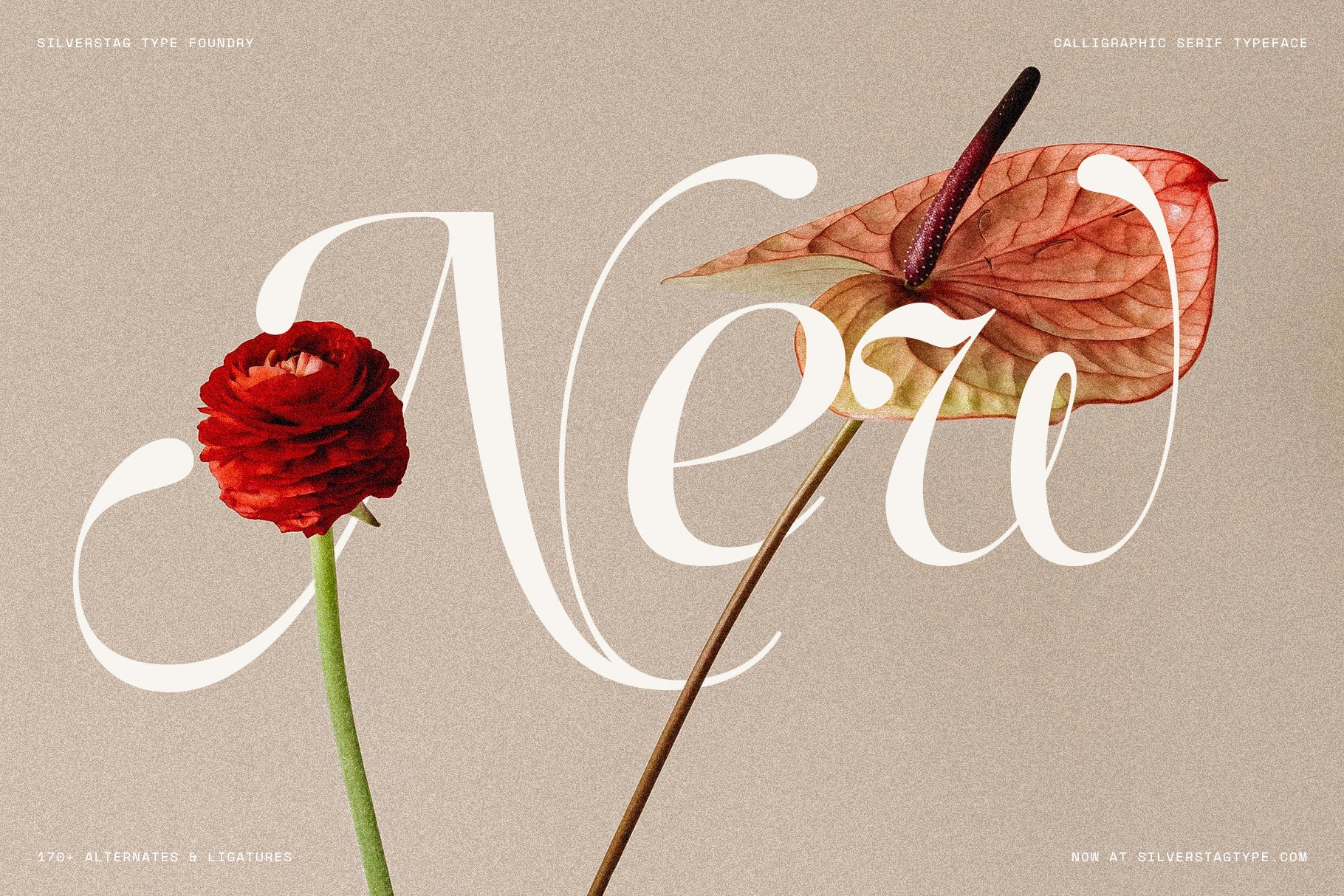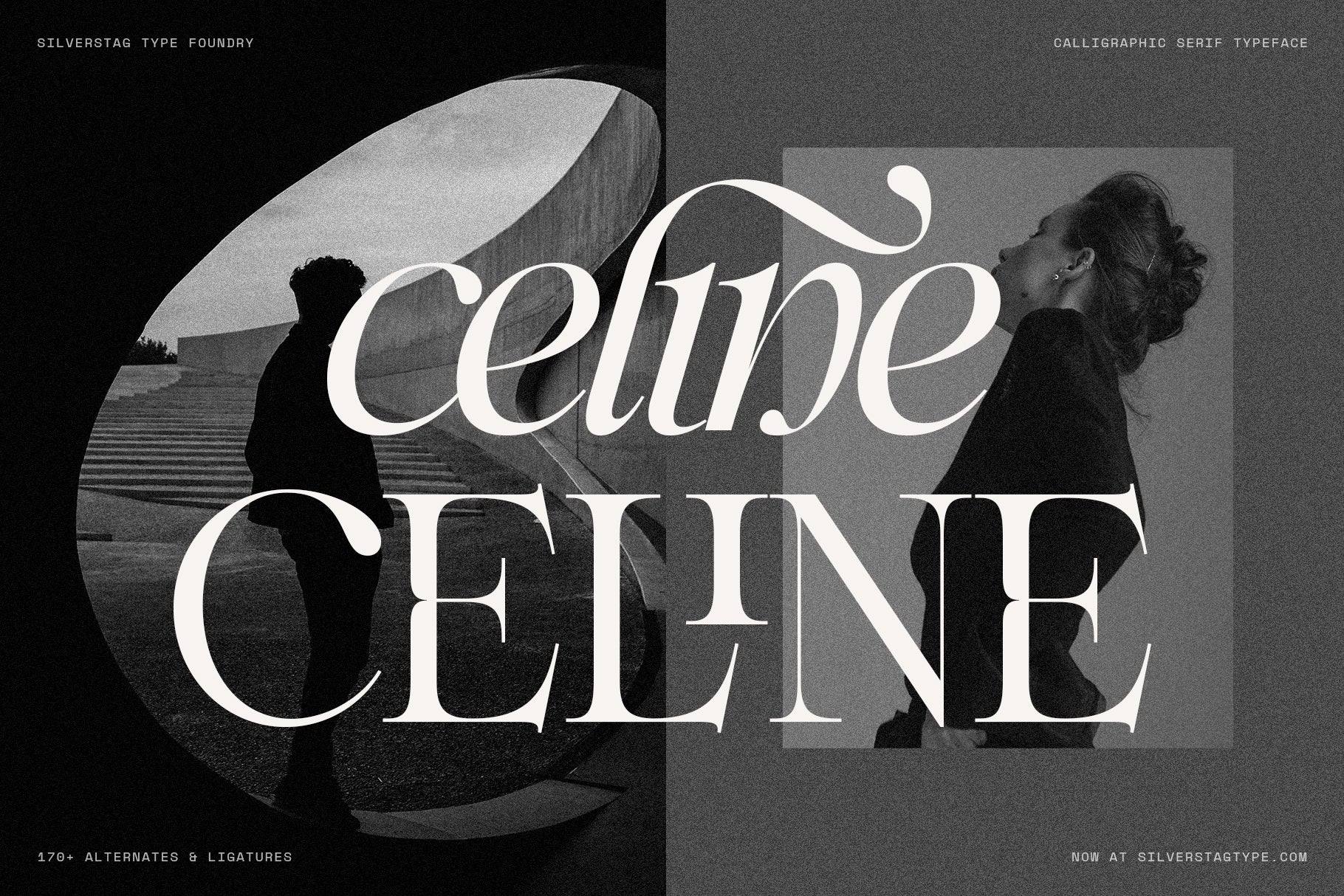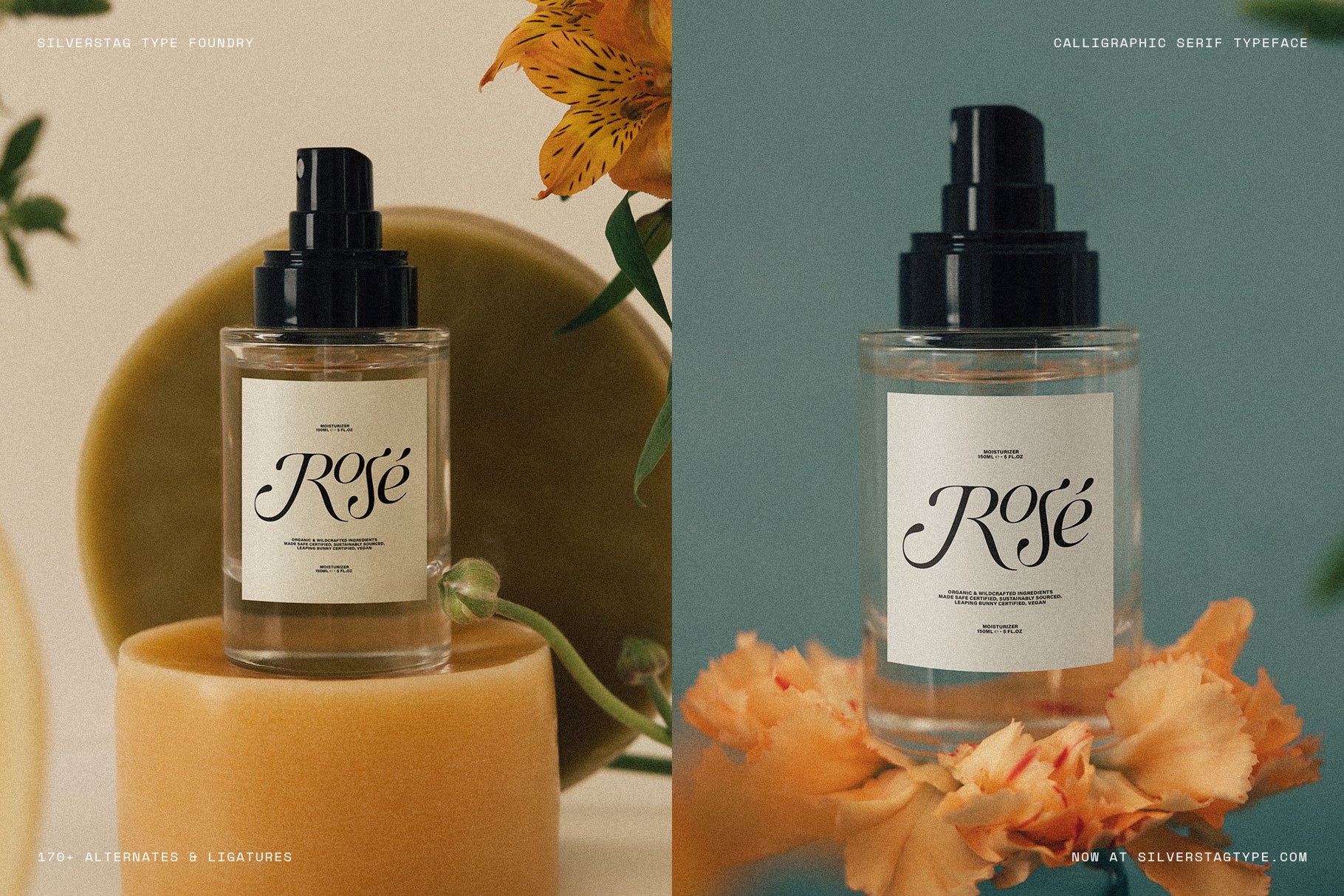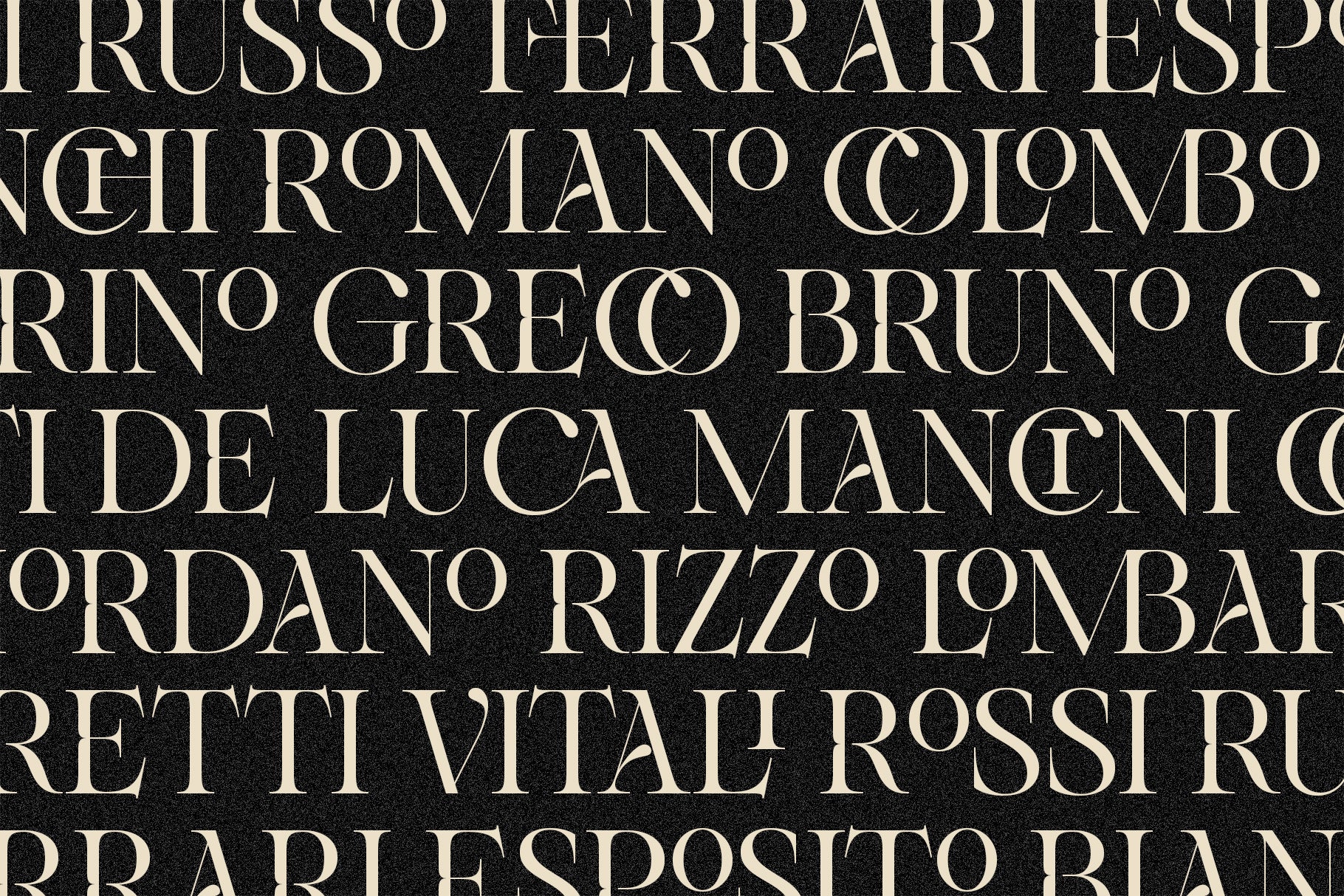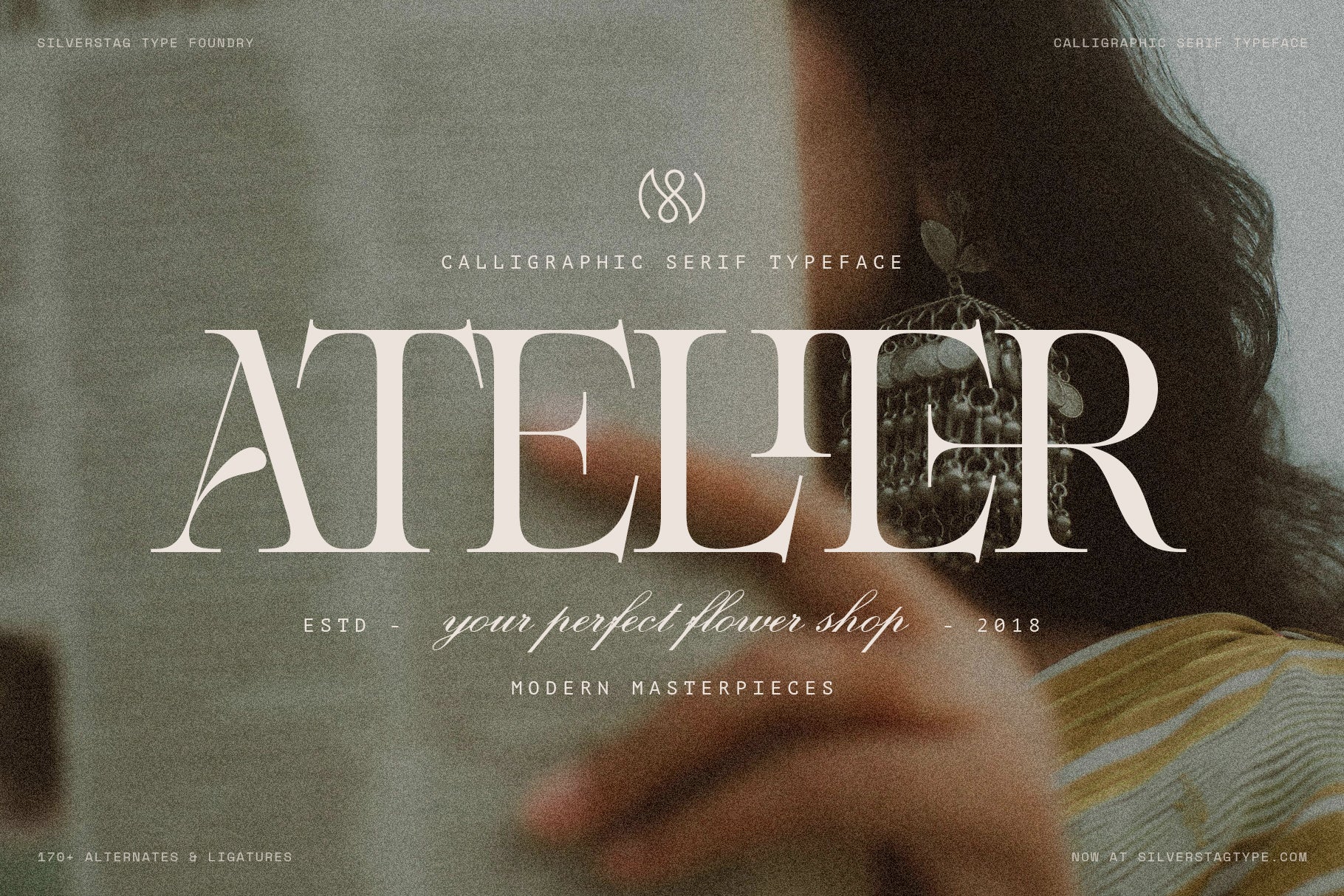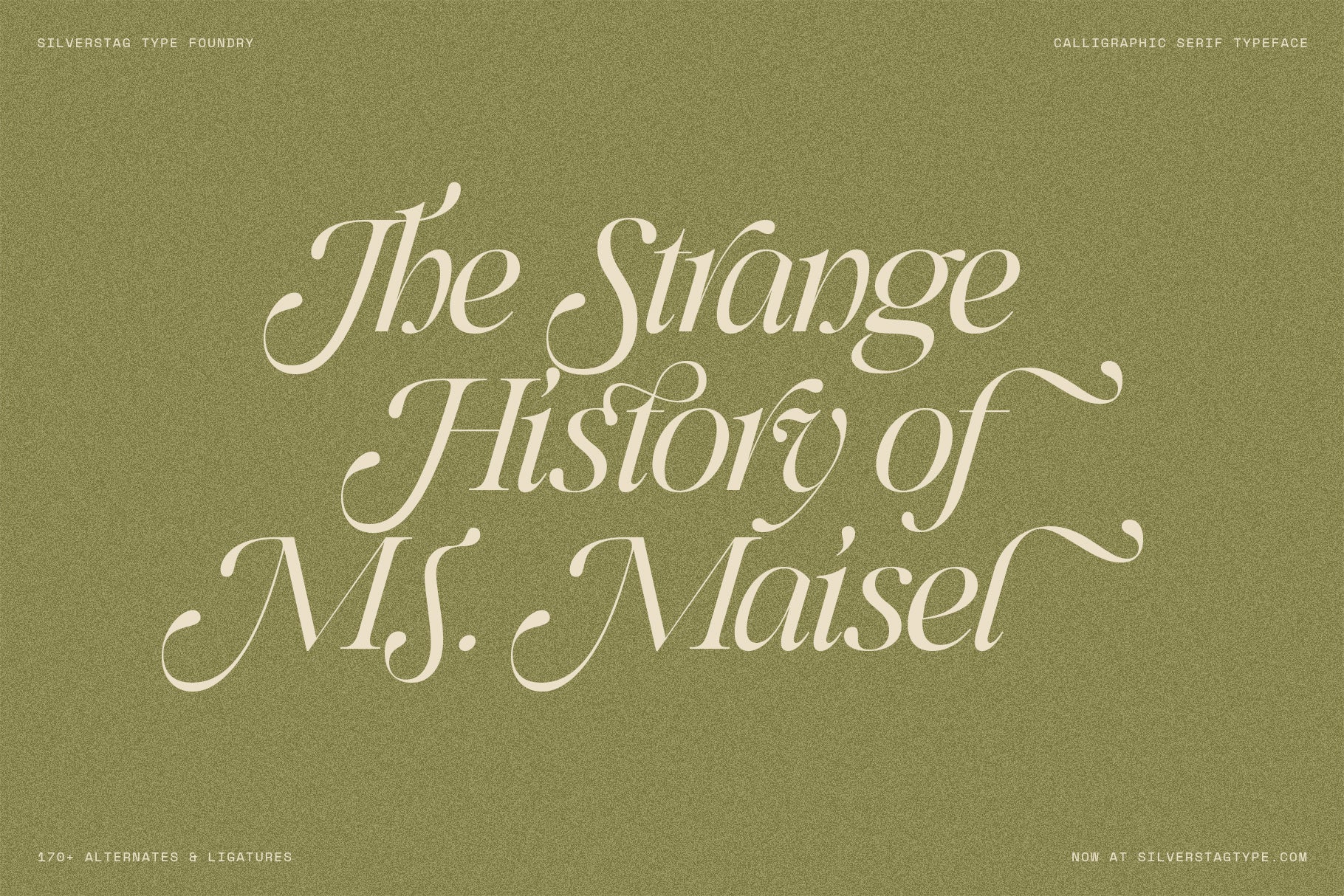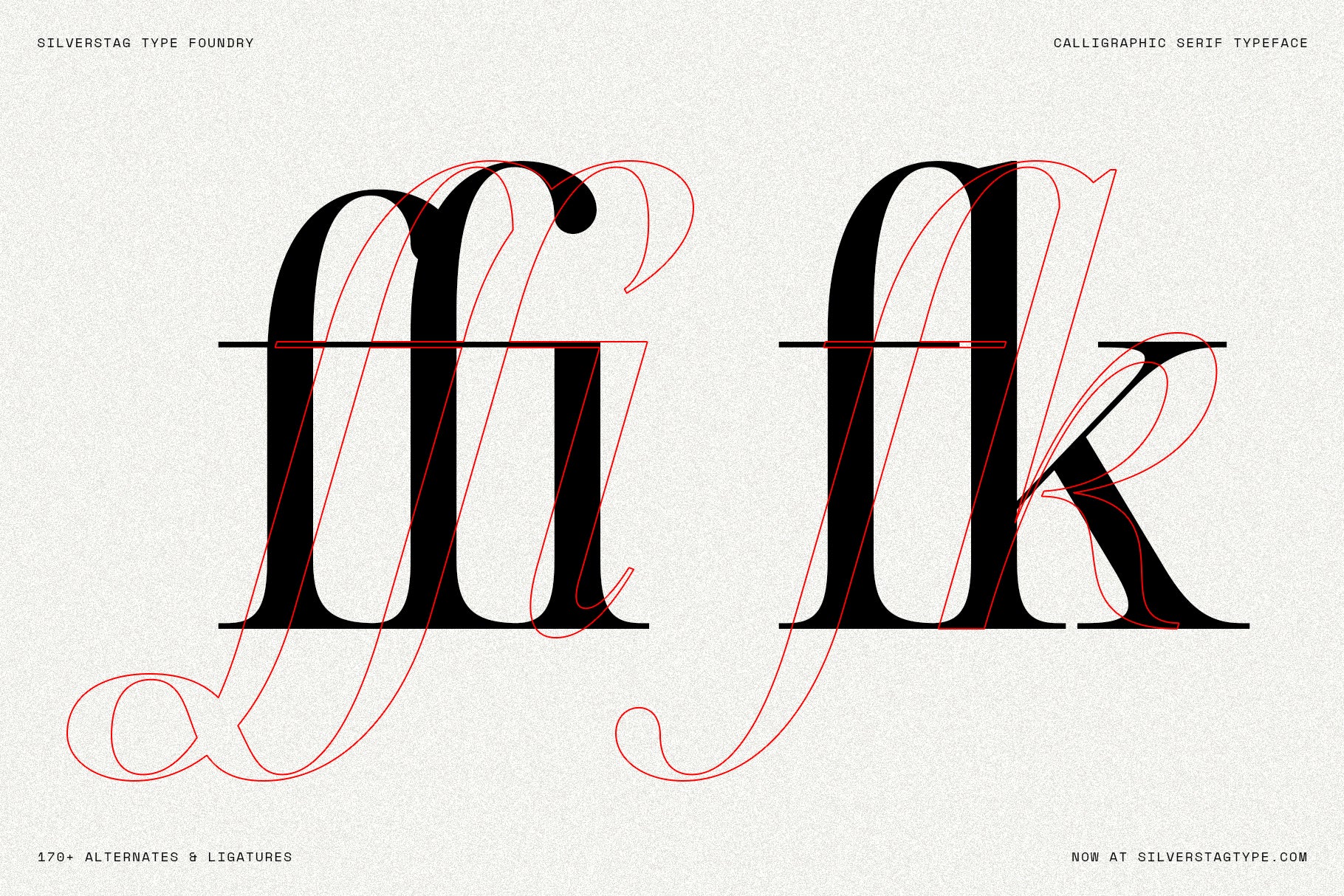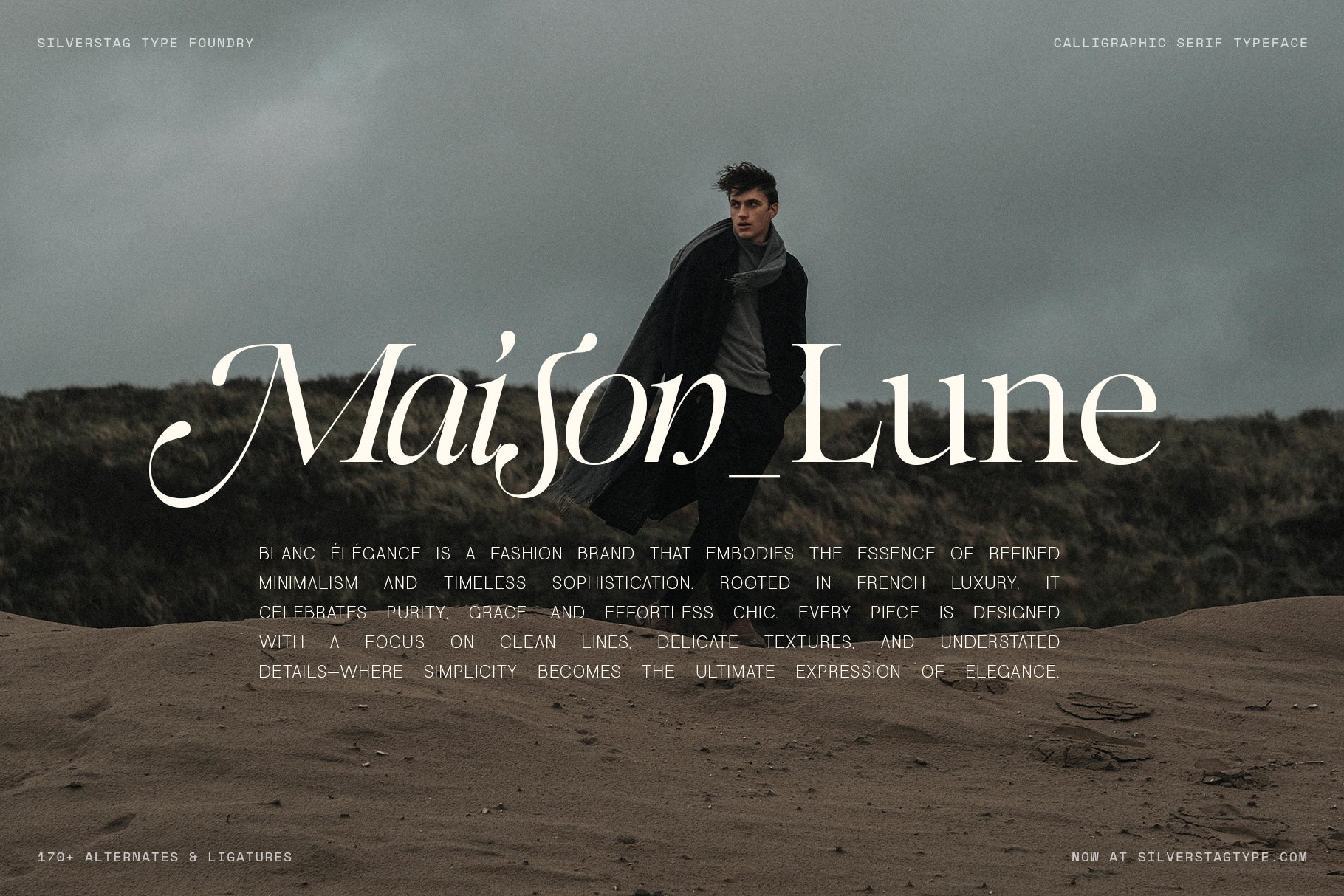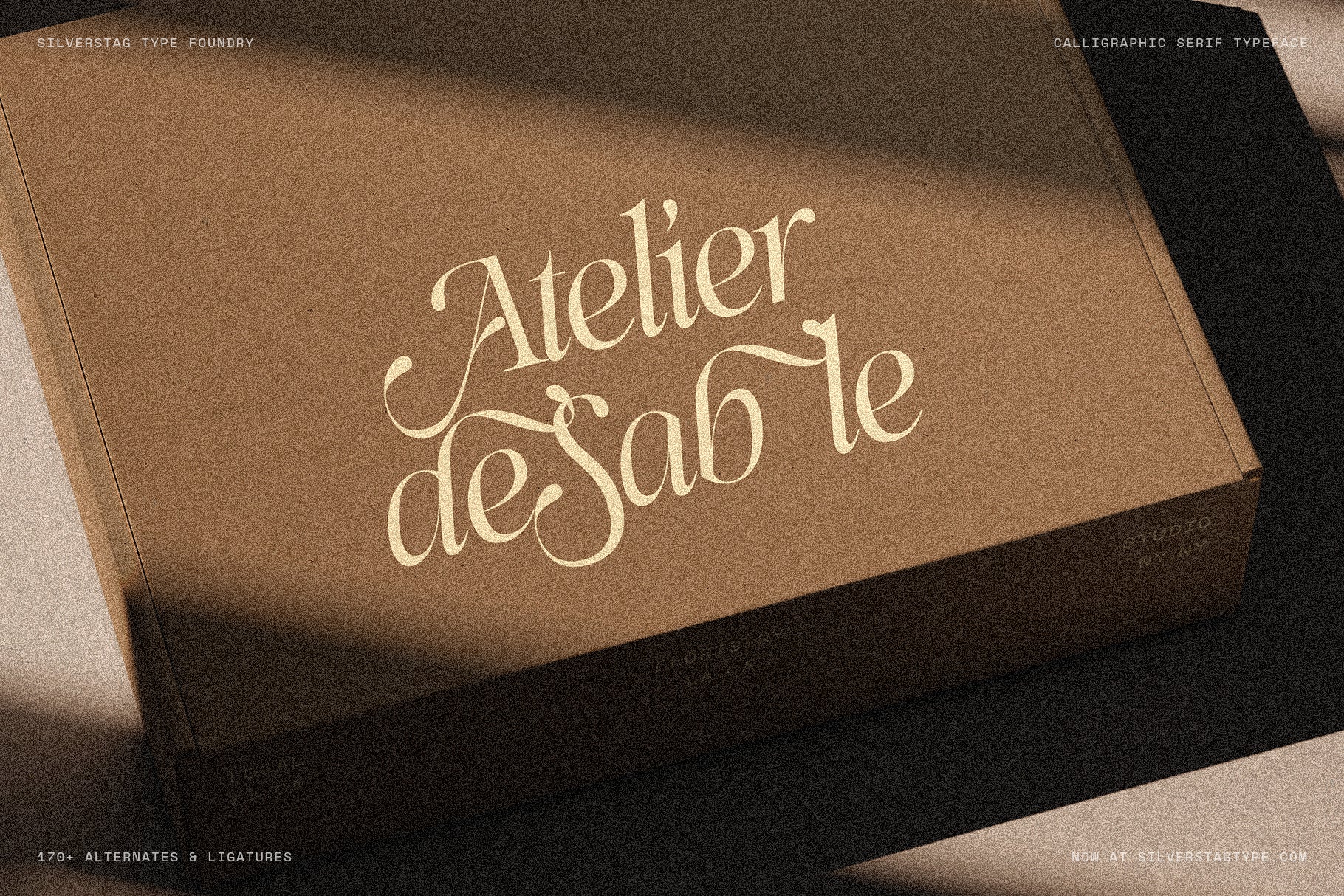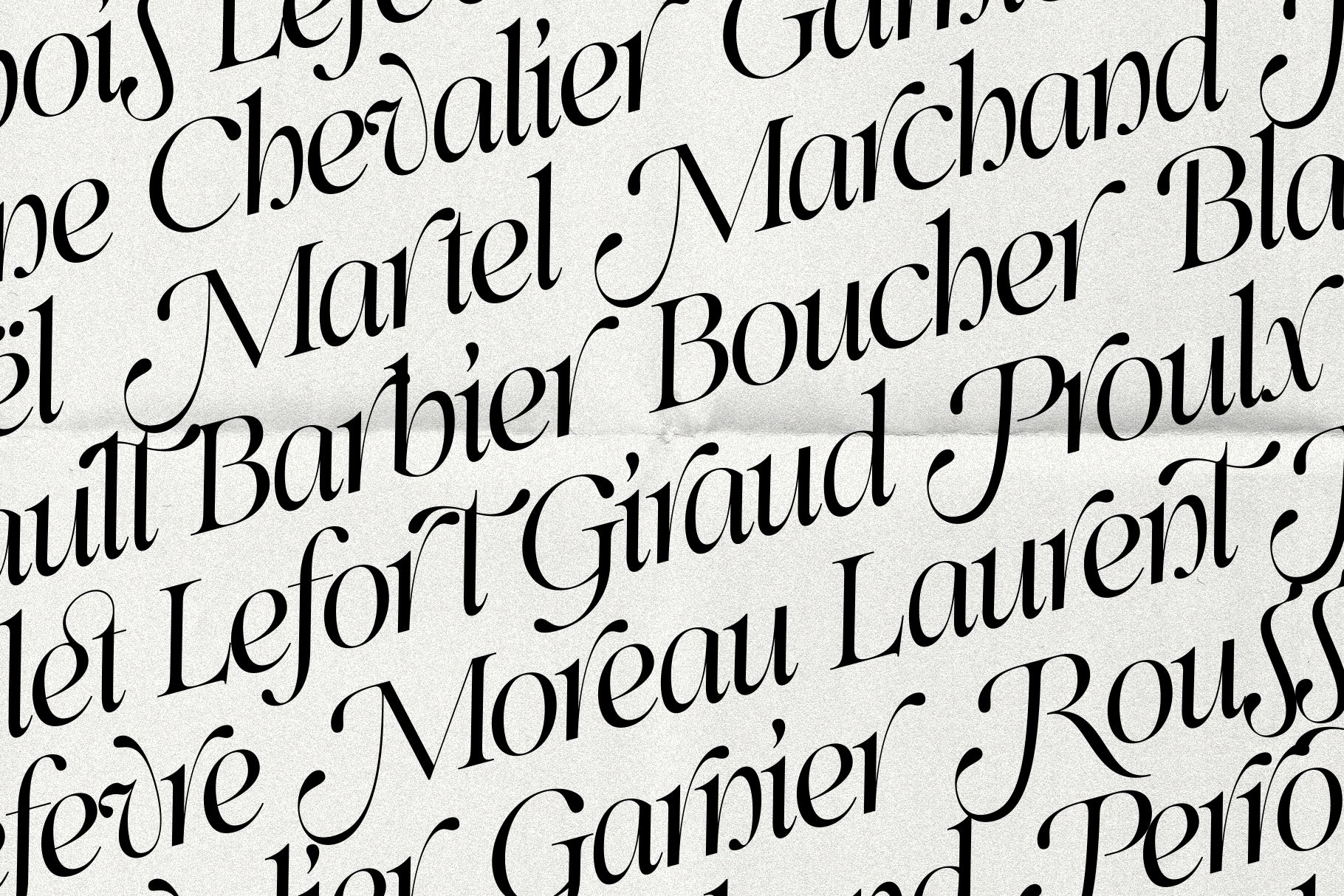
Introducing SLTF Netsera – a calligraphic editorial serif typeface designed to elevate elegance in every letterform. Meticulously crafted with over 900 characters, this font includes 170+ alternates and ligatures, offering a wide range of expressive possibilities for luxury branding, high-end packaging, magazine spreads, and romantic visual storytelling.
Netsera includes both Regular and Italic versions, each full of character, detail, and gentle sophistication. Every curve, swash, and serif has been thoughtfully designed to balance refined structure with artistic fluidity. From graceful ascenders to swirling terminals, this font brings personality without overpowering your message.
Ideal for projects that demand a romantic but modern aesthetic, SLTF Netsera is your go-to choice for headlines, logos, fashion branding, and visual identities that need to feel elevated and intentional.
Whether you’re designing a perfume label or a poetic editorial piece, Netsera is built to make your words unforgettable.